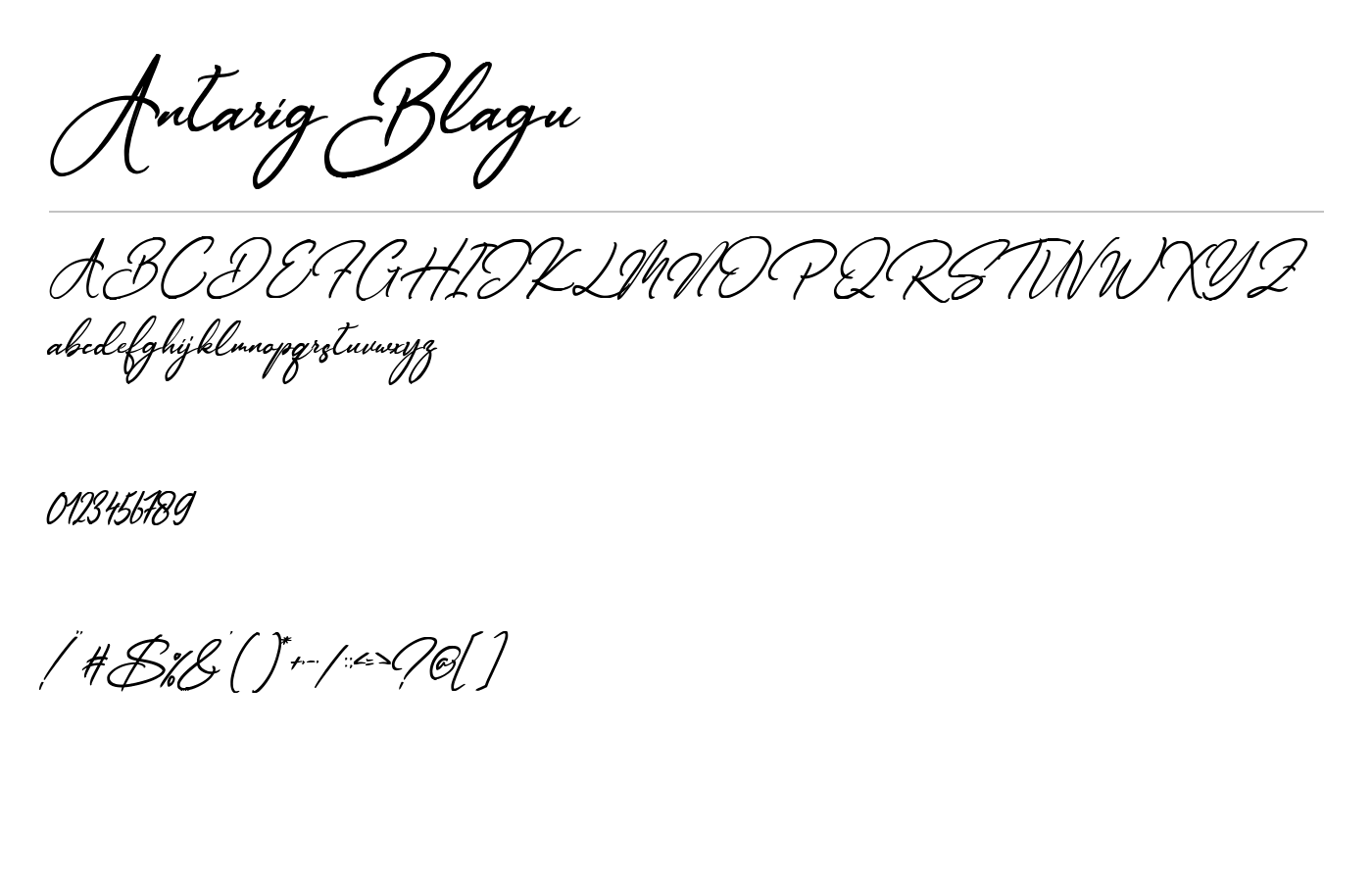
AntarigBlagu is a delicate and elegant script font that features smooth, flowing strokes with a refined handwritten style. Its light weight and graceful curves create a sophisticated and personal feel, making it perfect for wedding invitations, branding, and any design that seeks a touch of elegance and charm. The font’s readable yet artistic letterforms add a stylish flair, ideal for headlines and decorative text.
AntarigBlagu Font
About AntarigBlagu Font
| Font family | AntarigBlagu Font |
| Designer | Pineungtype |